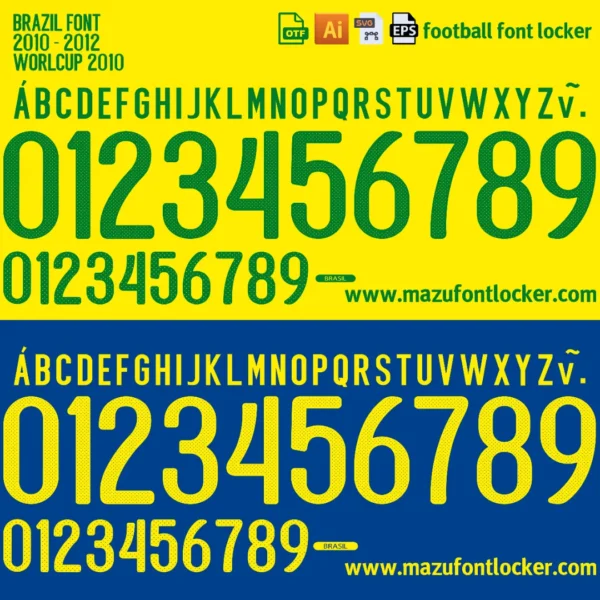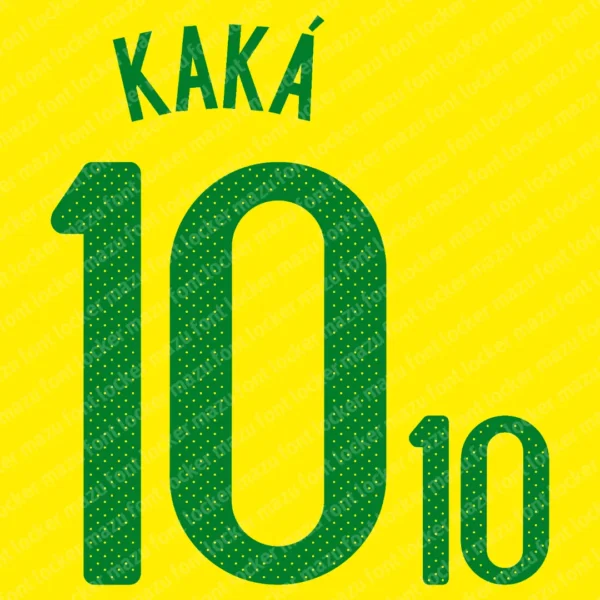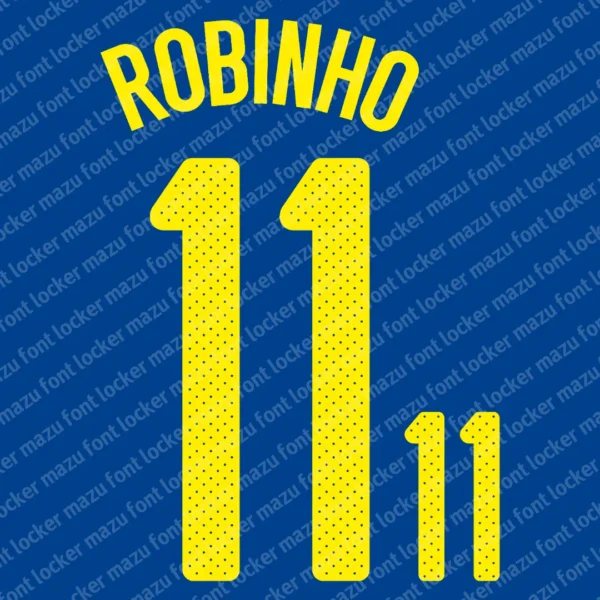
Brazil World Cup 2010 Font Vector – Triumphant Seleção Masterpiece
This premium font captures the commanding, majestic, iron-willed war-machine lettering that embodies the unstoppable Brazilian spirit — delivering raw South American fire, explosive national pride, unbreakable resilience, tactical dominance, and legendary warrior grit that made the world tremble.
Brazil World Cup 2010 Font Vector – Authentic Canarinho Typeface
The Brazil World Cup 2010 Font Vector is a premium typeface that accurately recreates the official match lettering worn by the Brazil national team during the 2010 FIFA World Cup in South Africa. This high-quality vector font kit captures the bold, vibrant, and iconic typography that represents the pride, passion, and legendary football heritage of the Seleção Brasileira.
Designed for professional designers and passionate Brazil fans, the Brazil World Cup 2010 Font Vector delivers perfect authenticity for creating realistic jersey mockups, fan merchandise, matchday posters, social media graphics, and Brazilian football content. It pairs beautifully with the iconic yellow, green, and blue kit featuring the famous CBF crest.
Why Choose Brazil World Cup 2010 Font Vector
This font stands out because of its sharp vector precision and strong national identity. Every letter and number is crafted to match the exact style used on the players’ shirts during the 2010 World Cup campaign. Whether you are making realistic kit templates or exciting Canarinho content, the Brazil World Cup 2010 Font Vector gives your designs that authentic Brazil look.
The letterforms in the Brazil World Cup 2010 Font Vector are tall, bold, and highly readable. The strokes have a strong, clean weight with excellent edge definition that looks powerful on the back of jerseys while maintaining the classic Brazilian flair and modern strength.
• Full uppercase A–Z and numbers 0–9 in authentic Brazil World Cup 2010 style
• Create highly realistic Brazil World Cup 2010 home and away jersey mockups with accurate lettering
• Produce custom Brazil merchandise with the 2010 aesthetic
Brazil World Cup 2010 Campaign
The 2010 FIFA World Cup in South Africa saw the five-time world champions Brazil return to the greatest stage with flair and determination. The Seleção delivered passionate performances under coach Dunga, showcasing technical brilliance, attacking talent, and the legendary Brazilian spirit that defines world football.
Stars like Kaká, Robinho, and Luis Fabiano united to create memorable moments for the nation. The campaign further strengthened Brazil’s reputation as one of the most successful teams in World Cup history.
The Brazil World Cup 2010 Font Vector is an independently designed typeface package. It is carefully crafted to replicate the official shirt lettering style of the 2010 World Cup season. This font kit is perfect for creative projects, fan edits, nostalgic jersey designs, and custom football graphics. Please note that this is a fan-made design tool and not an official product of the Brazilian Football Confederation.